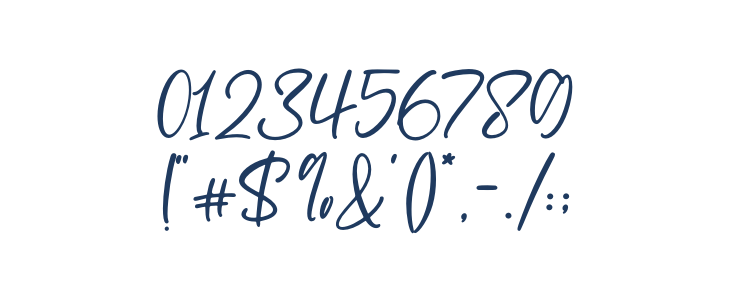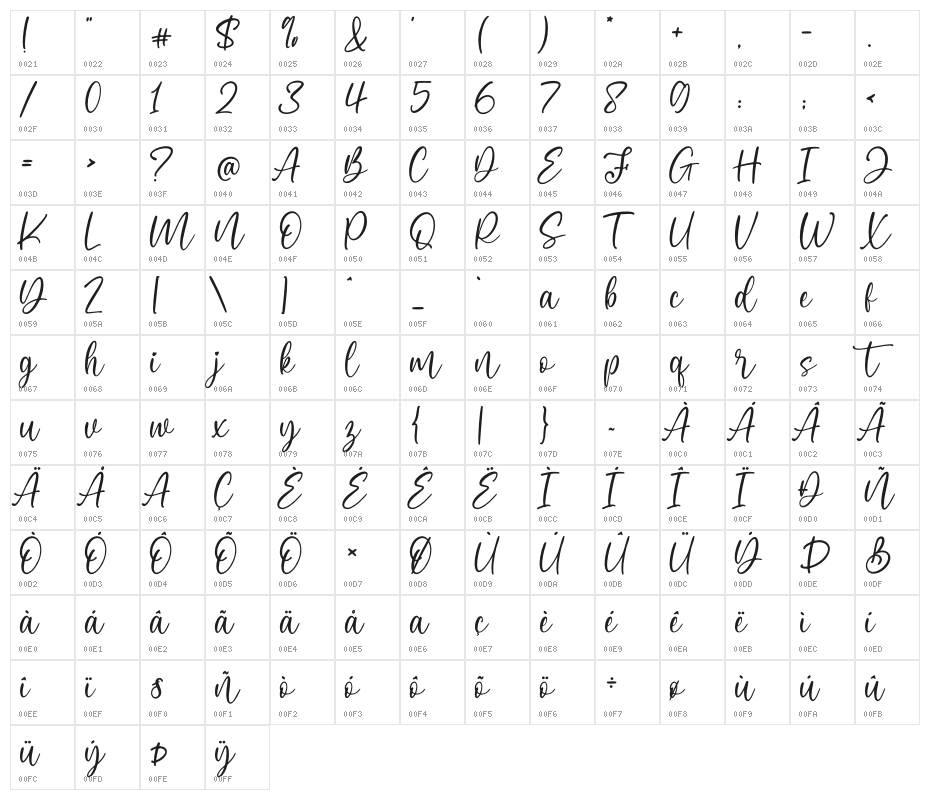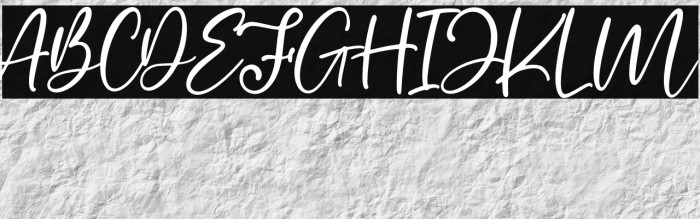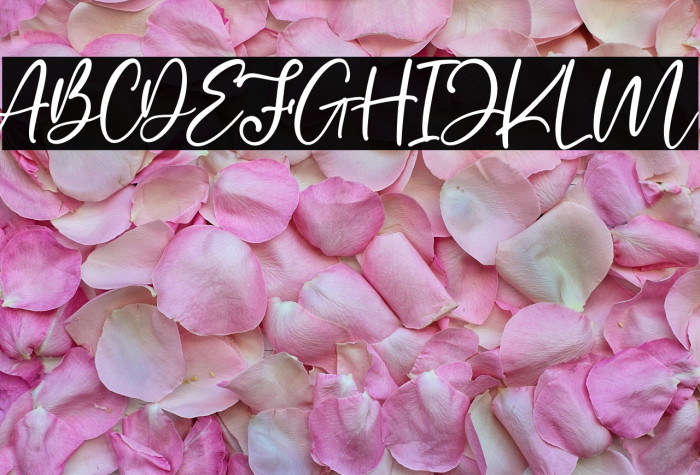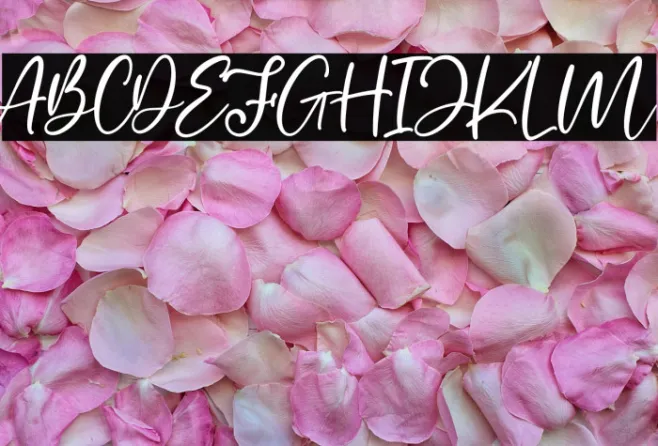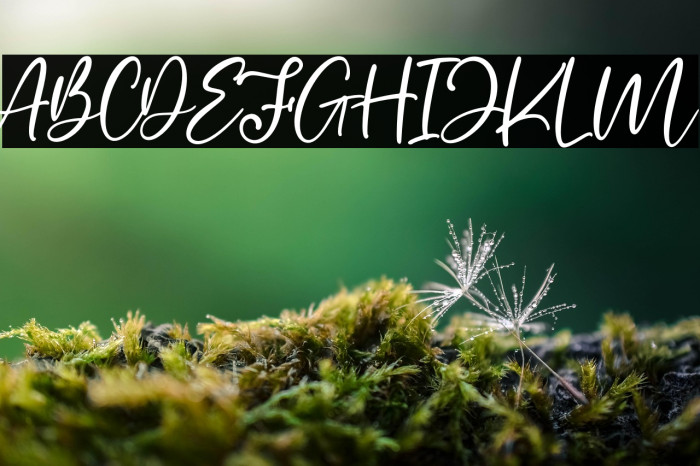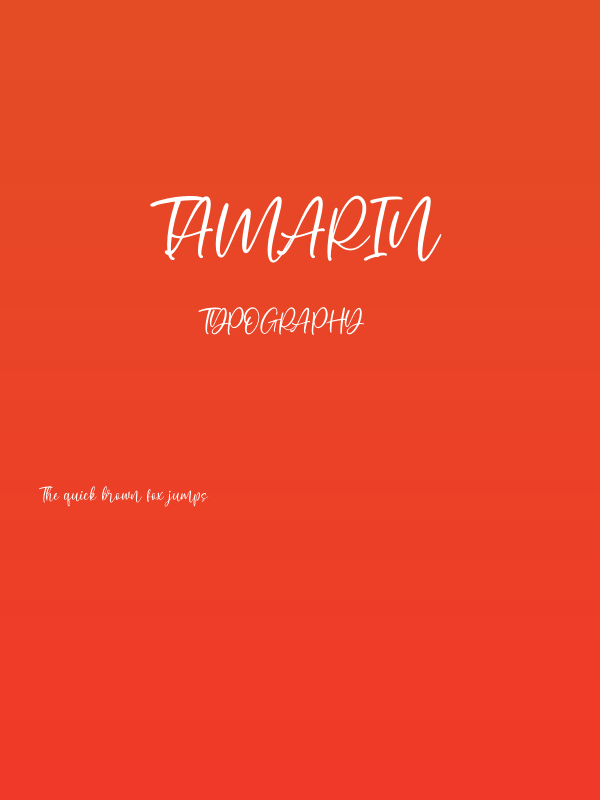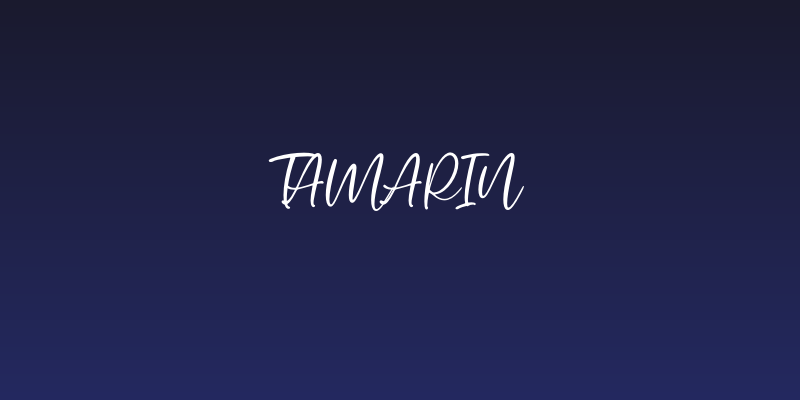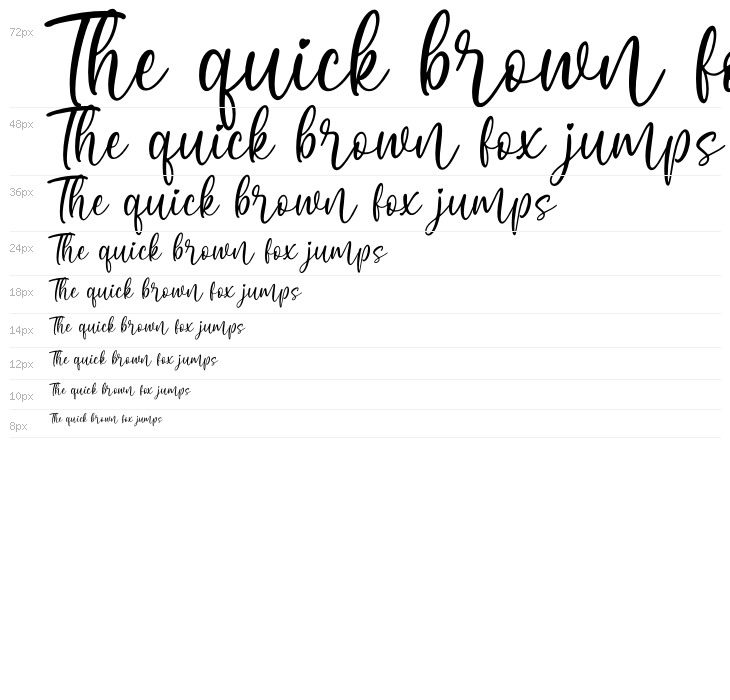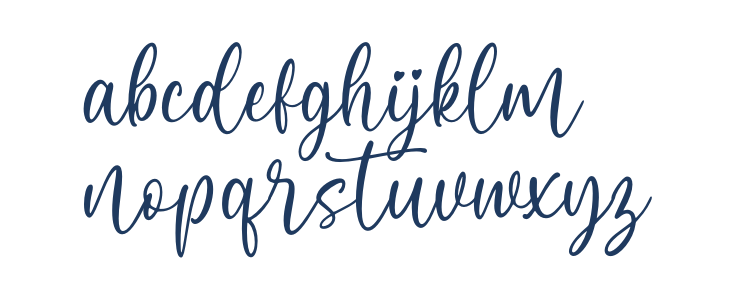
Tamarin Font
Tamarin Description
This font features a lively and flowing script style, characterized by its elegant and connected letterforms. The uppercase letters are bold and dynamic, with a slight slant that adds a sense of movement and grace. The lowercase letters maintain a consistent flow, with smooth curves and loops that enhance its handwritten appeal. Numbers and special characters are crafted with the same fluidity, ensuring a cohesive look throughout. The overall appearance is both sophisticated and approachable, making it suitable for a variety of creative applications.